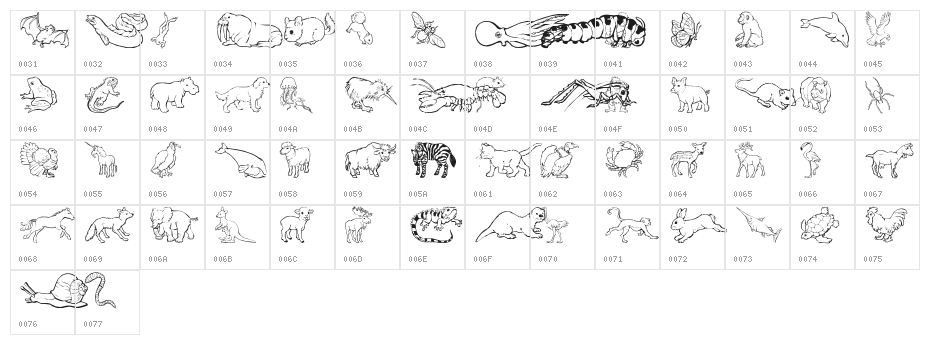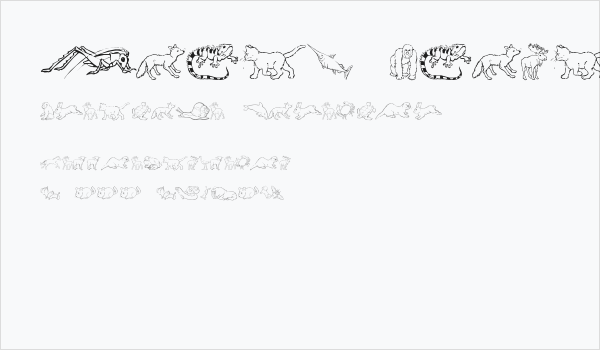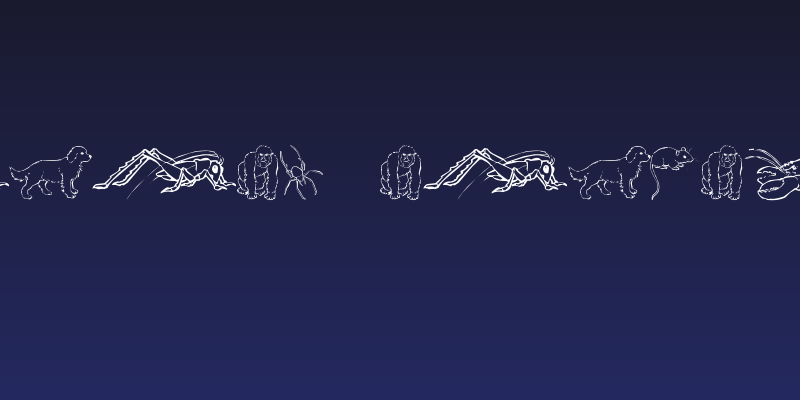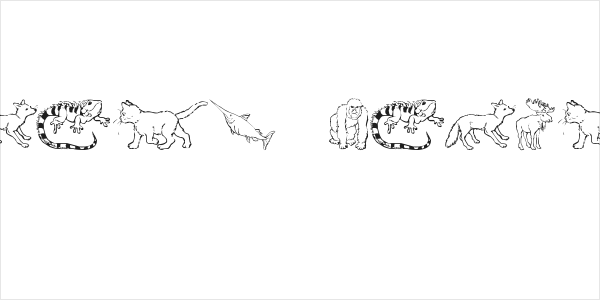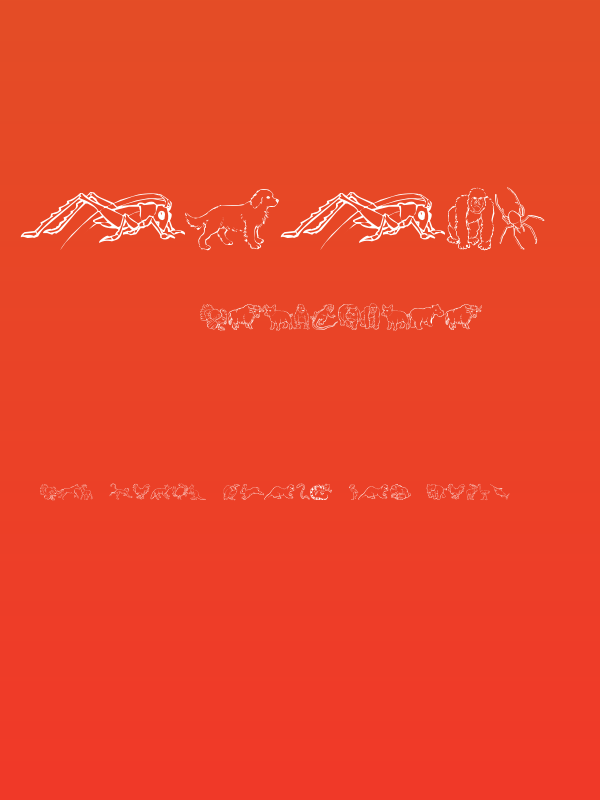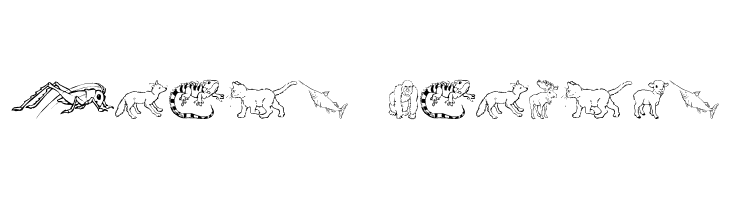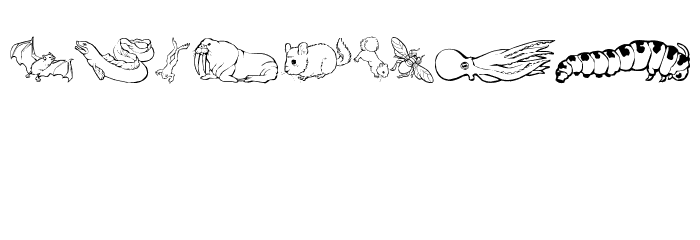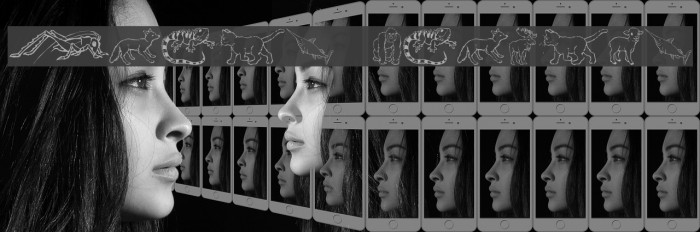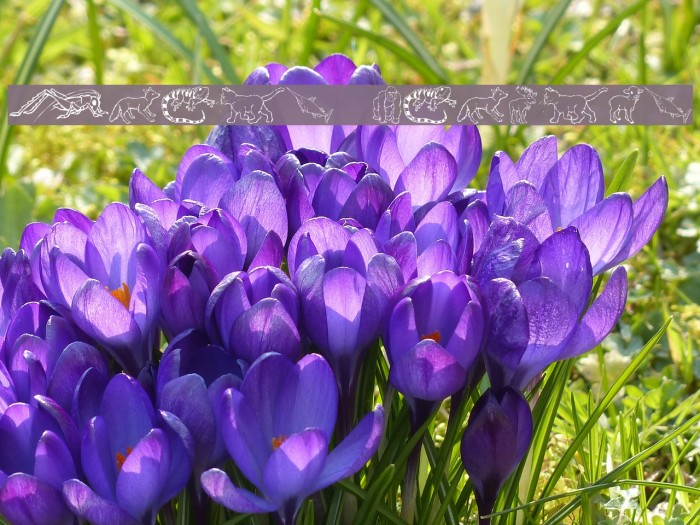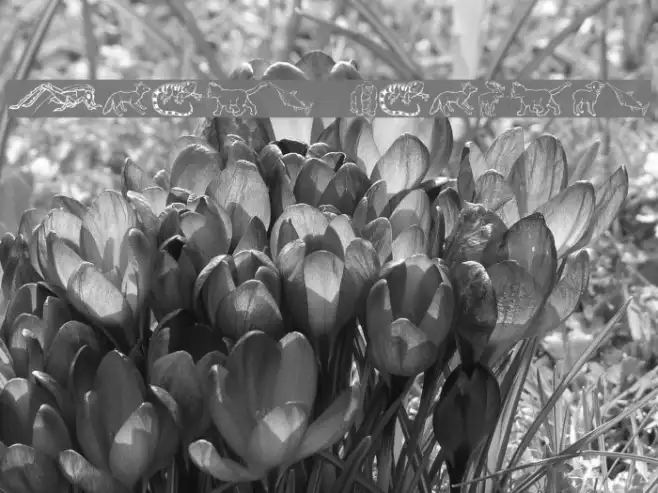
Nina's Animals Font
Nina's Animals Description
A playful and detailed collection of hand-drawn animal illustrations, each representing a different letter or symbol, with a consistent line-art style and whimsical character.
| Overall Style | Decorative, Whimsical, Playful |
| Use Case | Headlines, Logos, Posters, Educational content |
| Proposed Projects | Children’s books, educational materials, animal-themed posters, playful branding, creative invitations. |